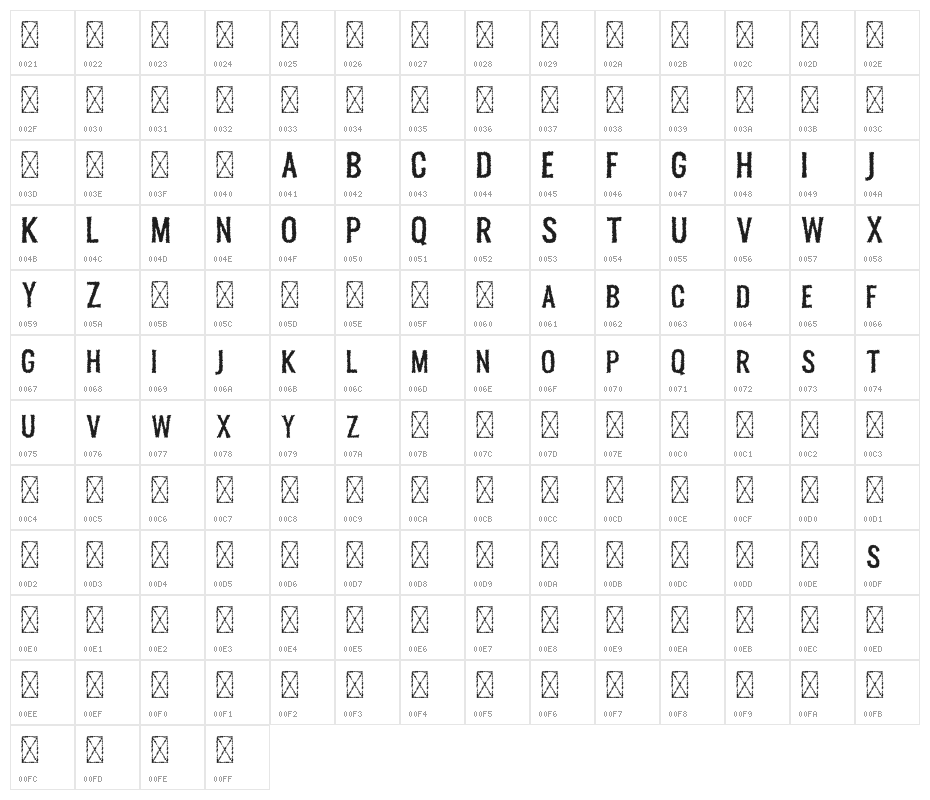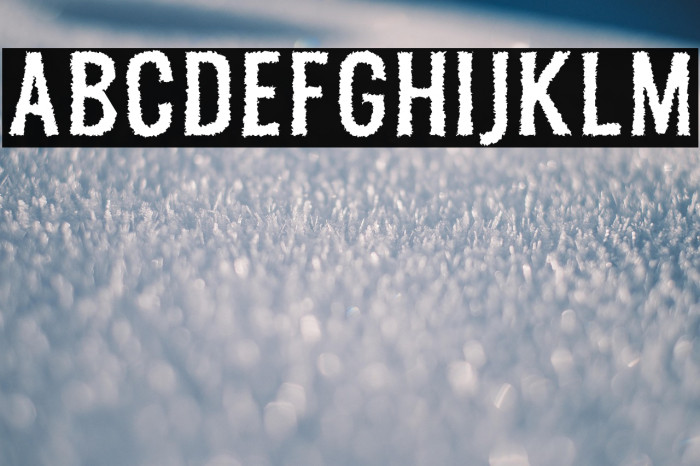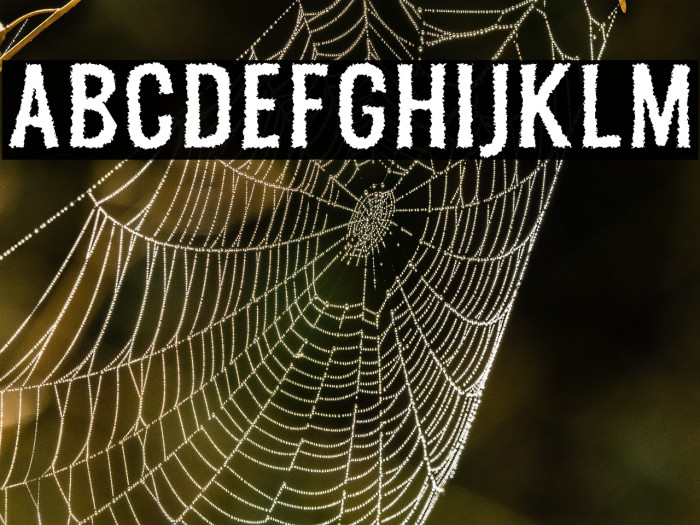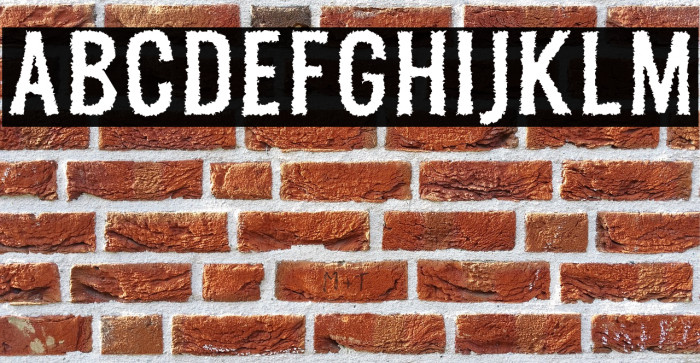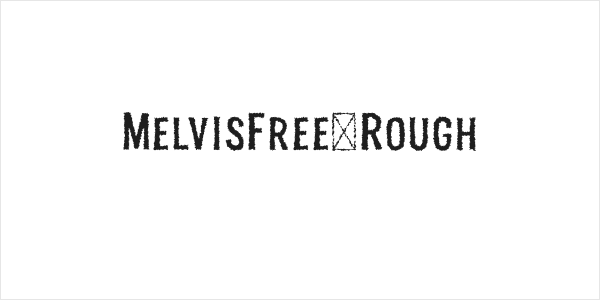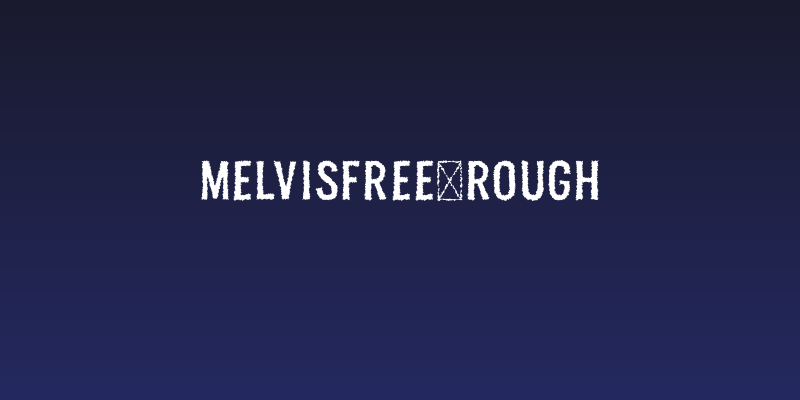
MelvisFree-Rough Font
MelvisFree-Rough Description
This font features a rugged, textured appearance that gives it a distinctive, hand-crafted feel. The characters are bold and slightly irregular, with a rough edge that suggests a vintage or distressed look. The uppercase letters are prominent and commanding, making them ideal for attention-grabbing headlines or titles. The overall design is reminiscent of old printing techniques, where the ink might bleed slightly, adding to its charm. This font is perfect for projects that require a touch of nostalgia or a rustic aesthetic, such as posters, branding for artisanal products, or any design that aims to evoke a sense of authenticity and craftsmanship.
| Overall Style | Vintage |
| Proposed Projects | Ideal for vintage posters, artisanal branding, rustic-themed designs, and attention-grabbing headlines. |